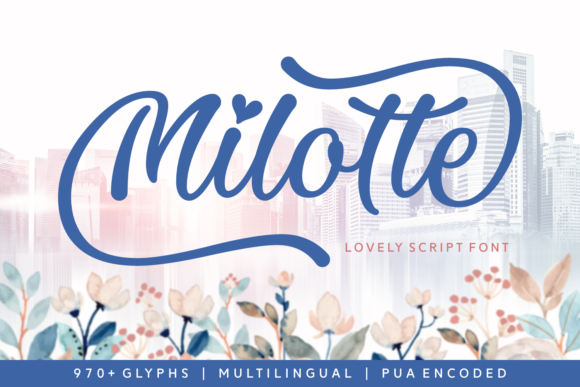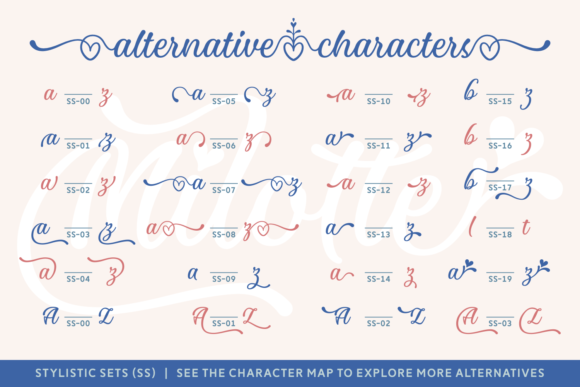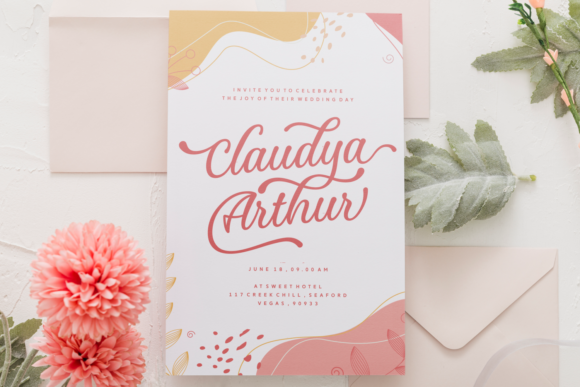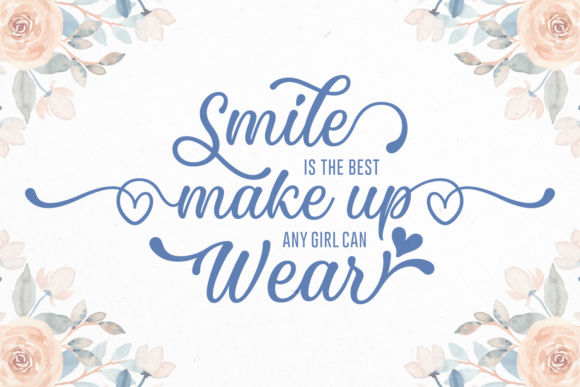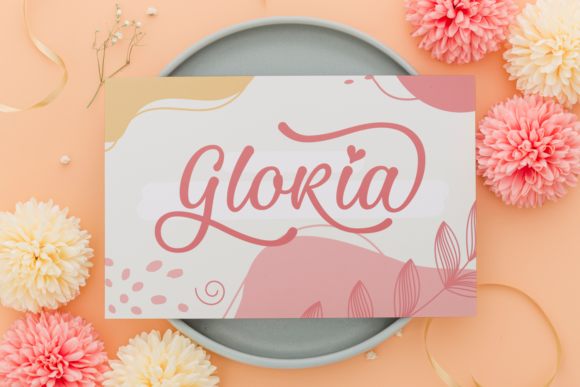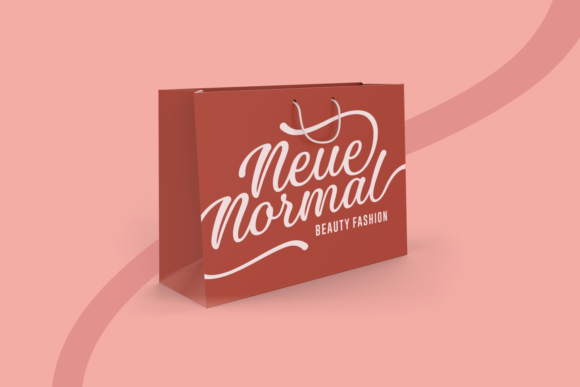
Milotte Font
About Milotte Font
Milotte is a gorgeous and sophisticated handwritten font. It features an incredibly classic style, while still keeping a friendly feel. Milotte is the perfect font for making original and outstanding designs.